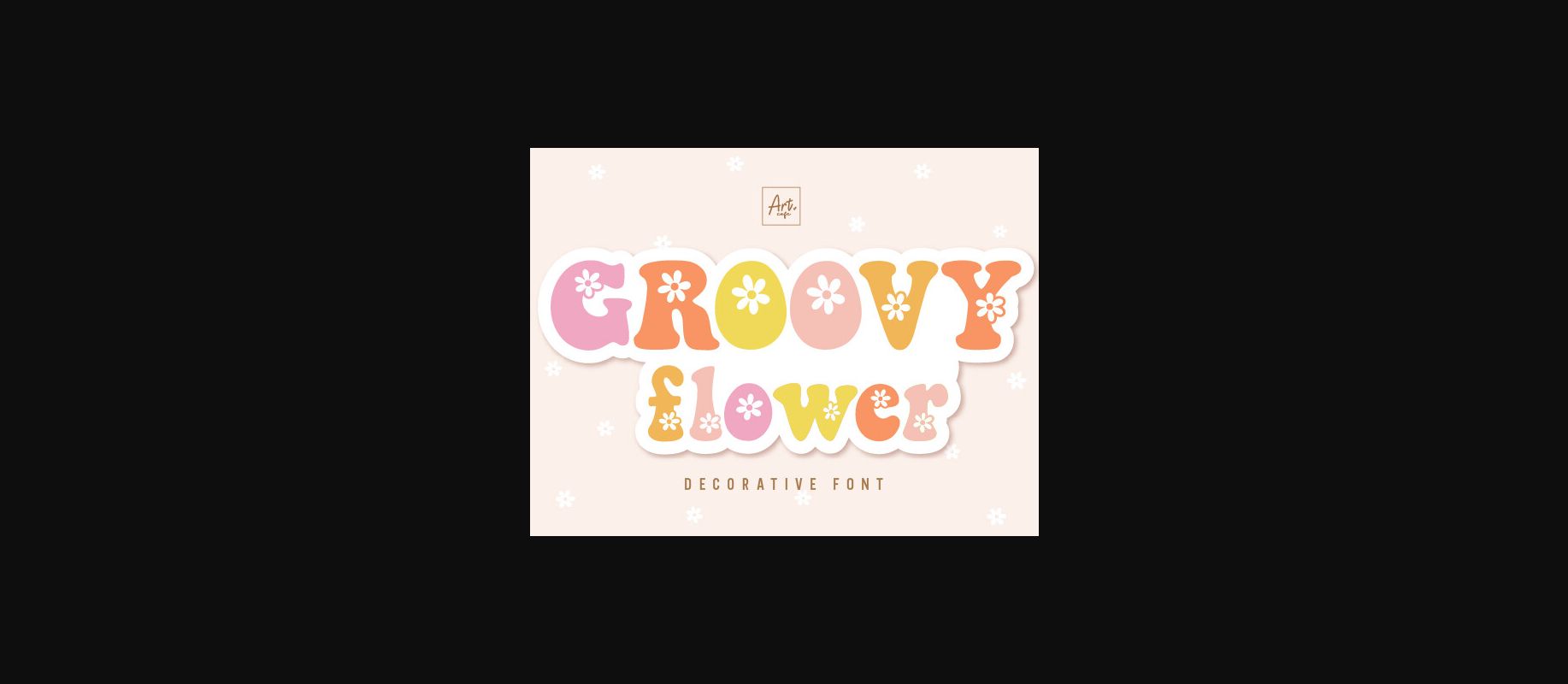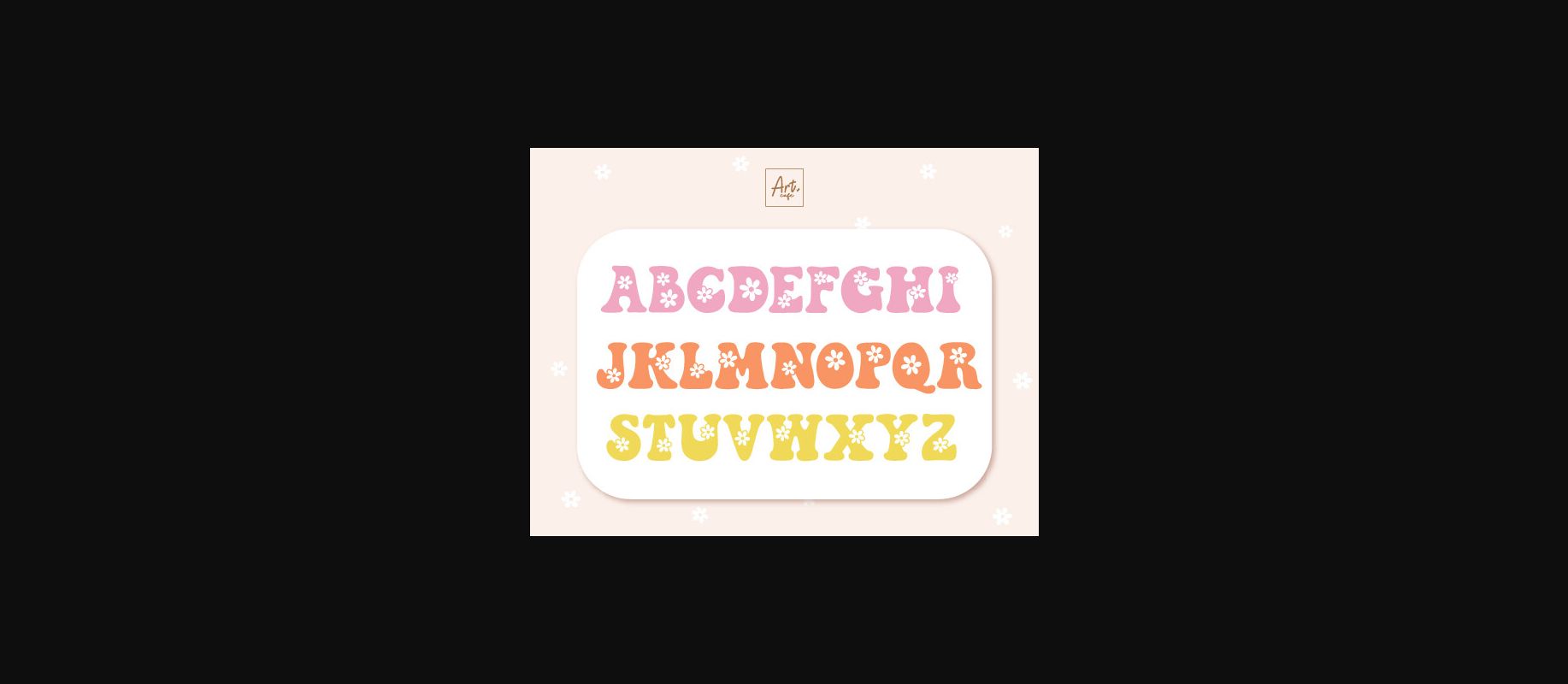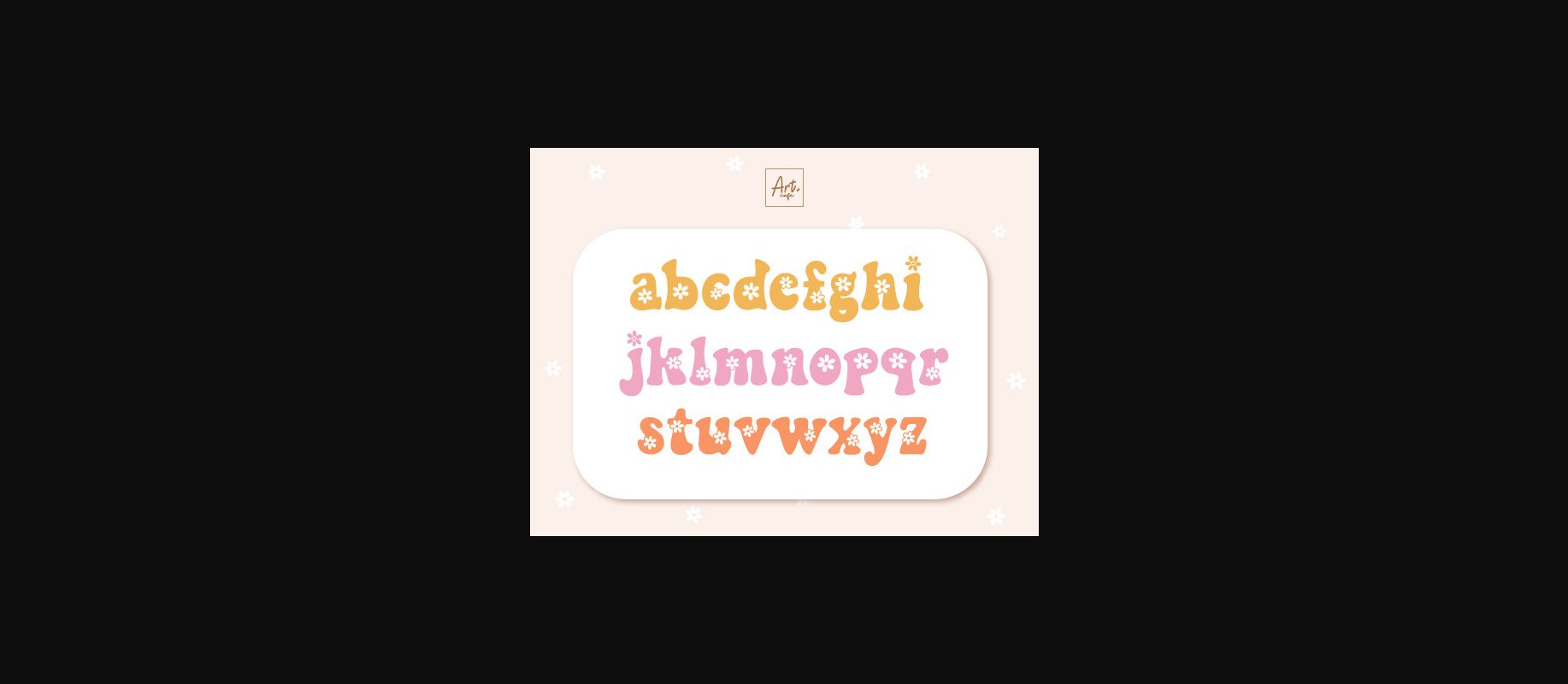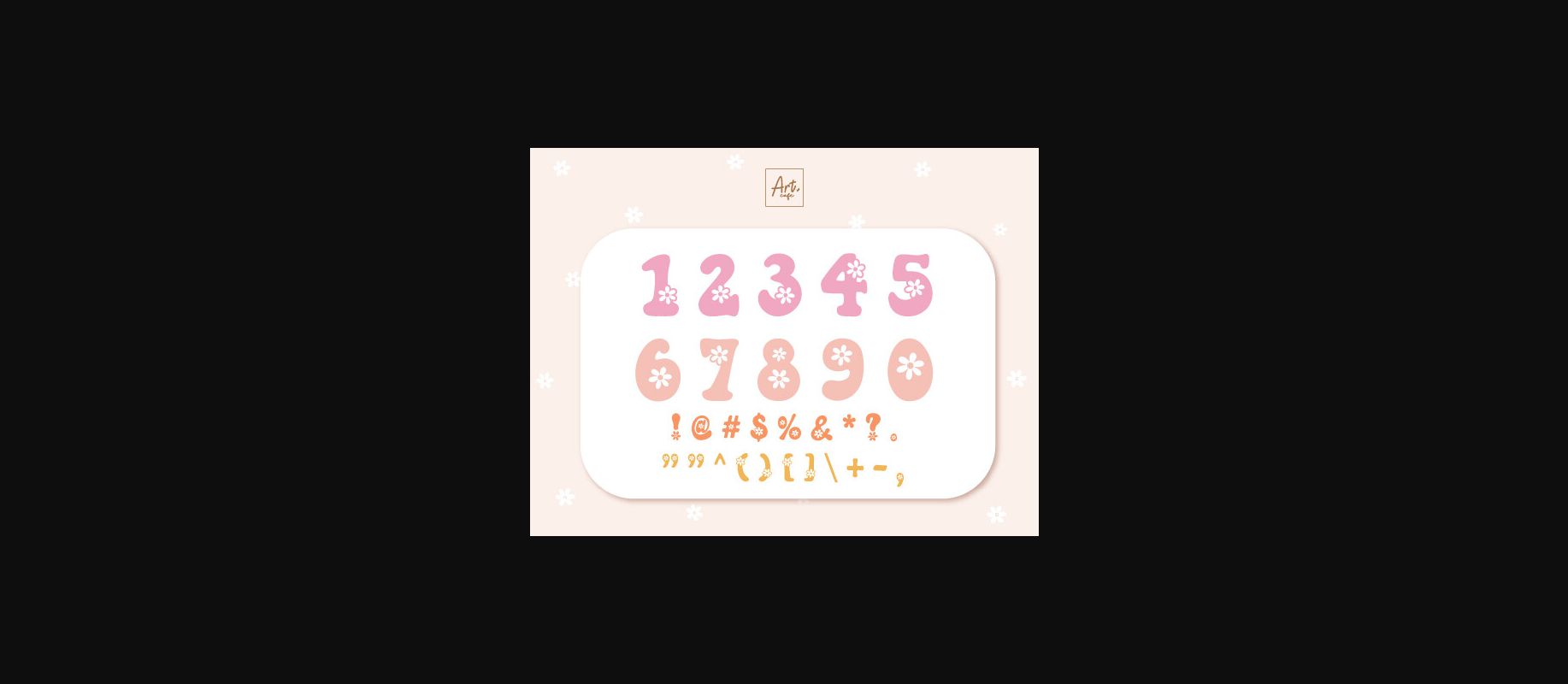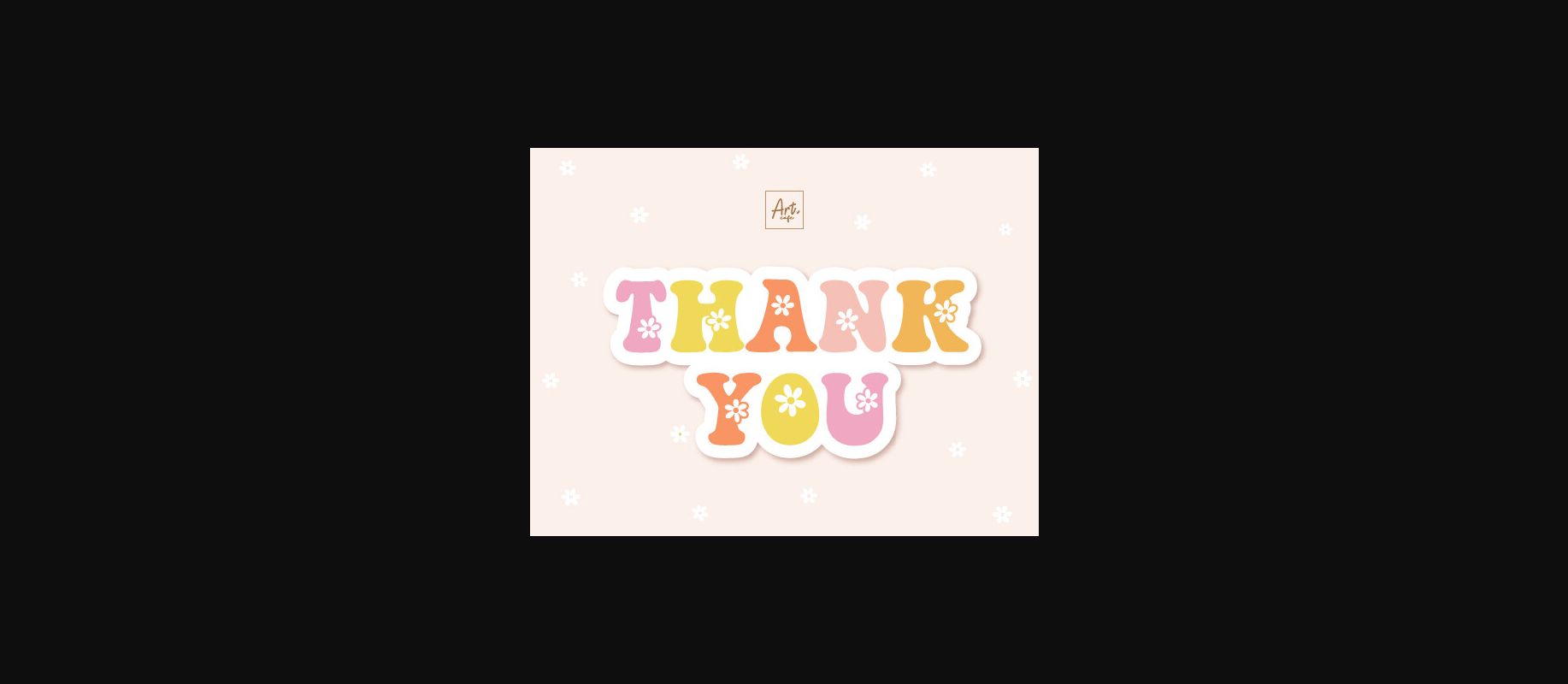
About Groovy Flower Font
Groovy Flower font is cute and suitable for spring season with retro style. This font is bold, it offers support for all characters of the English language for display font.
It can be used for any design project e.g. posters, t-shirts, mugs, kid’s projects, planners, stickers, home decor, etc.